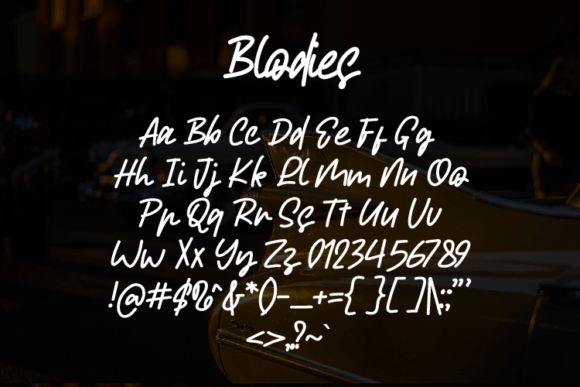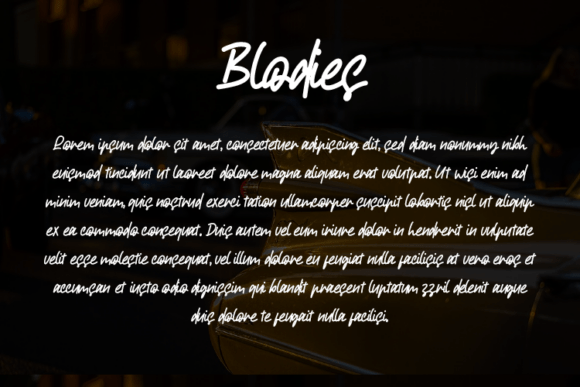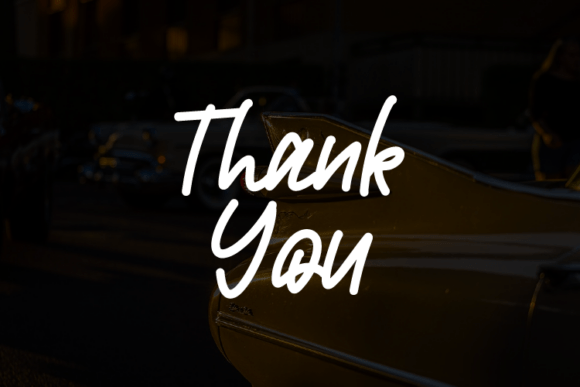
Discover the Perfect Harmony of Form and Function: Blodies Font
As a designer, there’s nothing quite like the thrill of bringing a project to life. The moment when your vision finally takes shape, and your carefully crafted words leap off the page – it’s a feeling like no other. And at the heart of that magic is often a well-chosen typeface. That’s why we’re excited to introduce you to Blodies Font, a modern and elegant typeface designed to deliver flexibility and exceptional readability across a range of media.
- Unique Characteristics: Features a unique blend of modern and vintage elements, with intricate details and ornate flourishes that add a touch of elegance to any design.
- Kerning and Ligatures: Includes advanced kerning and ligature pairs to ensure smooth text rendering and a professional appearance.
Blodies Font Review
I recently had the chance to work with the Blodies Font, and I must say, it’s a unique and eye-catching addition to any design project. ✨ The font’s hand-drawn, cursive feel adds a touch of elegance and sophistication to any text-based element.
Some of the things that work well with Blodies Font include:
- Its versatility – it can be used for a wide range of applications, from titles to body text.
- Its high legibility – even at small font sizes, the font remains clear and easy to read.
- Its wide language support – it includes a vast array of languages, making it a great choice for global designs.
- ⚠️ The font may not be the best choice for projects that require a more formal or professional tone, as its cursive feel may come across as too playful.
- ⚠️ The font’s high x-height may cause issues with certain line spacing settings, so it’s essential to double-check your design’s typography settings.
Overall, I think the Blodies Font is a great addition to any designer’s toolkit. While it may have some limitations, its unique feel and high legibility make it a great choice for the right project.
Tips for Getting the Most Out of Blodies Font
Blodies Font is ideal for creating eye-catching headlines and titles. Use it to add a touch of elegance and sophistication to your designs. Experiment with different font sizes and colors to create a unique look.
Blodies Font is commonly used in:
- Brand identity design